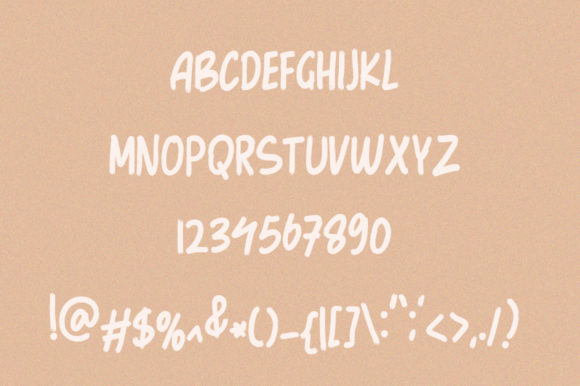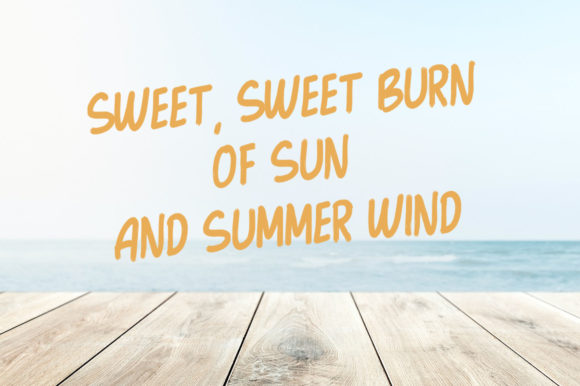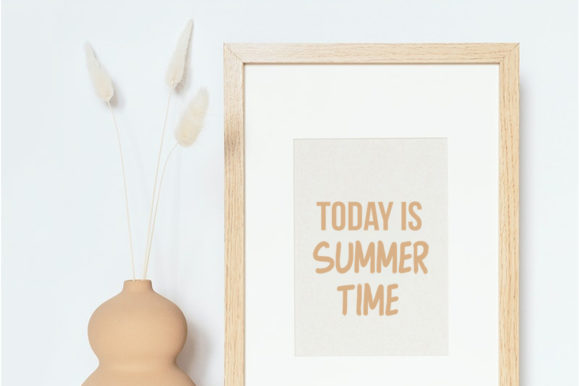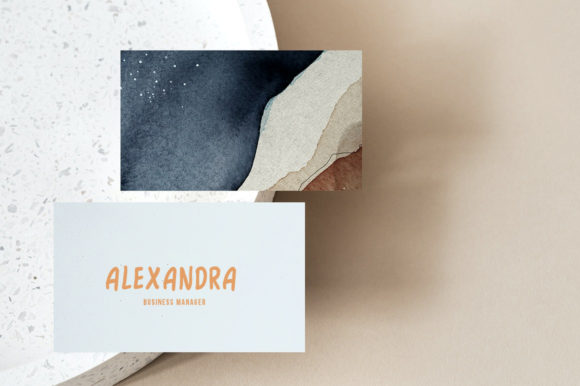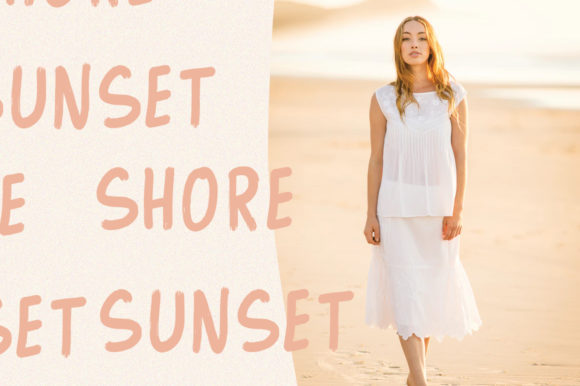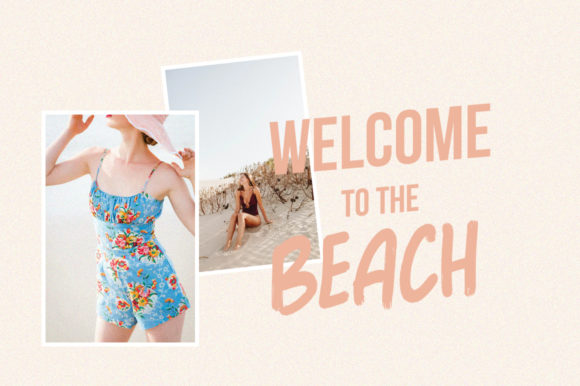
Introduction to Goodboom Font
Have you ever stared at a blank canvas, trying to bring your creative vision to life? The right font can be the missing piece that elevates your design from ordinary to extraordinary. For many designers, the search for the perfect font is a never-ending quest.
Enter Goodboom Font, a simple yet powerful lettered display font that’s about to become your new design BFF. Its friendly feel makes it incredibly versatile, fitting a wide range of contexts, from creative projects to everyday designs. Whether you’re working on a logo, social media graphics, or even a presentation, Goodboom Font is the perfect design resource to add some personality to your work.
Key Features of Goodboom Font
- High-quality design resource ideal for creative projects, offering a unique and stylish aesthetic.
- Comes with a transparent background, allowing for seamless integration into various design applications.
- Includes a range of sizes and resolutions, making it suitable for use in various design contexts.
- Features a clean and modern design, perfect for use in branding, typography, and other creative endeavors.
- Supports multiple languages, making it a versatile design resource for global creative projects.
Honest Review: Goodboom Font
I recently stumbled upon the Goodboom Font and was excited to give it a try in my latest creative project. The Goodboom Font is a fantastic design resource that can elevate your visual content with ease.
What works well is the clean and modern design aesthetic that the Goodboom Font embodies. It’s perfect for creating high-quality visuals that will grab the attention of your audience. The transparent background feature is also a huge plus, as it gives you the flexibility to use it with any design concept.
- Transparent background for flexibility
- Modern and clean design aesthetic
However, I did encounter some limitations while using the Goodboom Font. ⚠️ The font library is somewhat limited, and I wish there were more options to choose from.
Overall, I’m impressed with the Goodboom Font and would definitely recommend it to designers looking for a reliable design resource. It’s a great addition to any design toolkit, and I’m excited to see how it will perform in future projects. ✨
How to Use Goodboom Font
The Goodboom Font is a high-quality design resource that offers a unique and creative touch to your projects. With a transparent background, this font is perfect for adding a touch of elegance to your designs.
For the best results, use the Goodboom Font in combination with other high-quality design resources. Experiment with different font sizes, colors, and styles to create a unique look that suits your creative project.
The Goodboom Font is perfect for:
- Designing business cards and brochures.
- Creating social media graphics and posts.
- Developing marketing materials and presentations. Alternatives to Goodboom Font